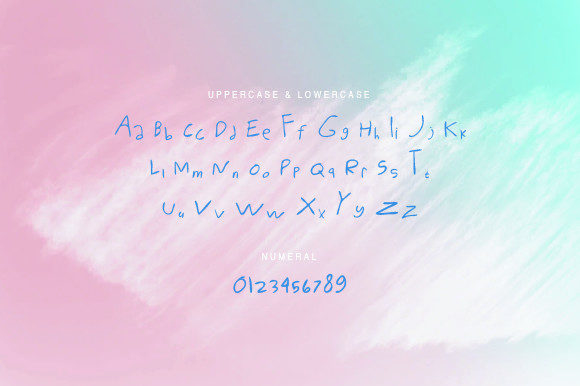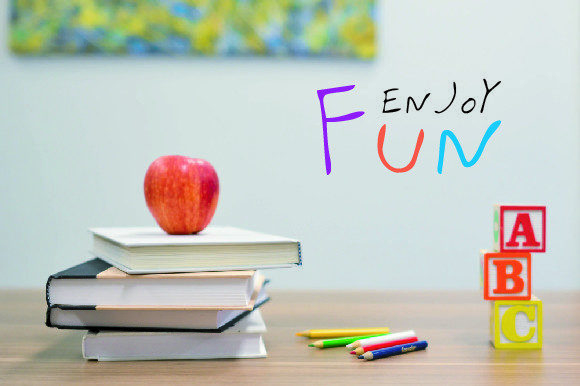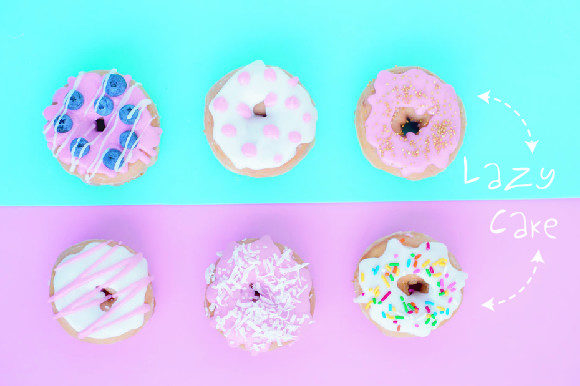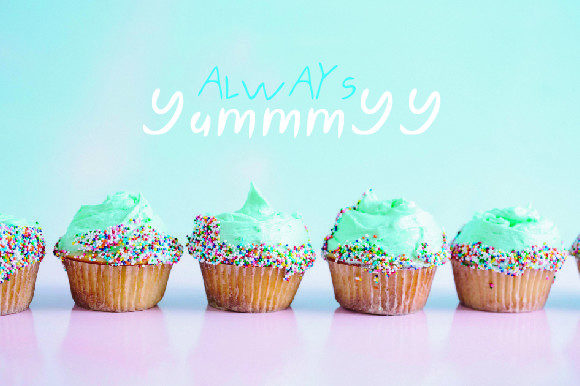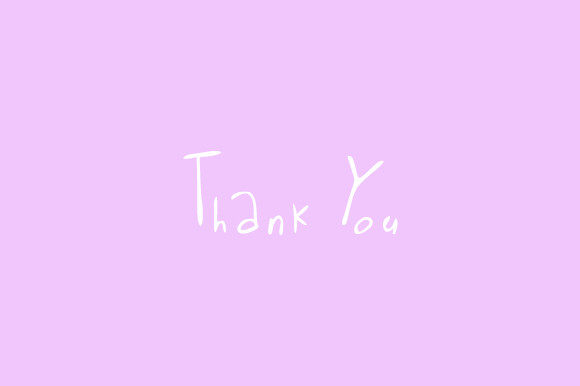
Jima Font
About Jima Font
Jima is a cute and simple handwritten font. No matter the topic, this font will be an incredible asset to your fonts’ library, as it has the potential to elevate any creation.